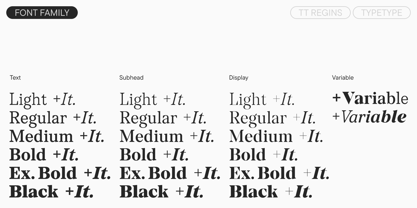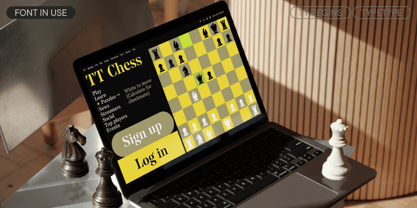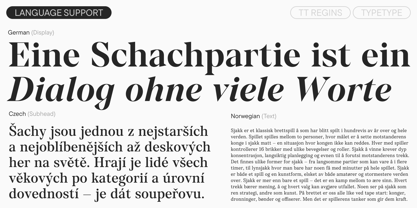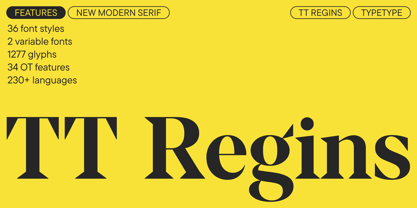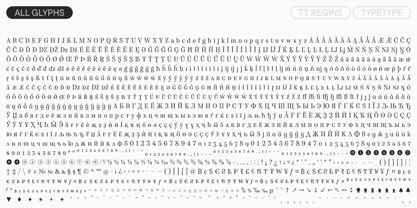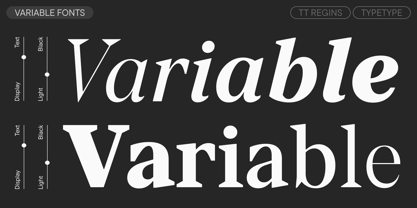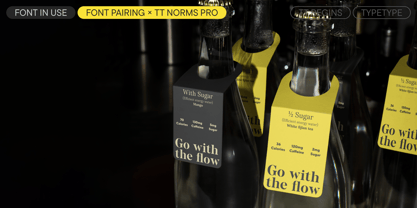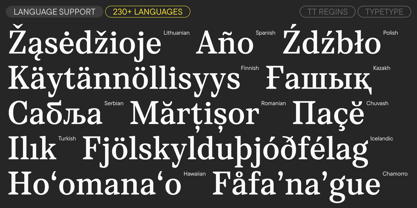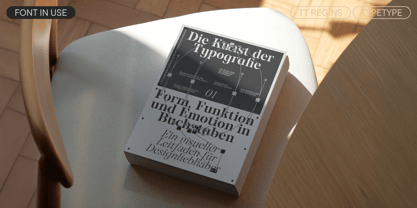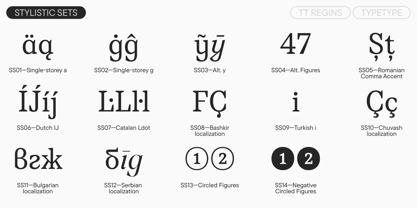
TT Regins
by TypeType
The TT Regins Font Family was designed by Marina Khodak, TypeType Team and published by TypeType. TT Regins contains 38 styles and family package options. More about this family
Introducing the new TT Regins—a font with a royal character! TT Regins is a Scottish modern serif. Striking contrast and sharp triangular serifs give this font a stern and commanding character, while refined forms, enlarged lowercase letters, and slightly condensed, static proportions add grace to its design. TT Regins includes three subfamilies with varying degrees of contrast: Display, Text, and the intermediate Subhead. In the Display subfamily, designed for large inscriptions, the contrast is most pronounced, and the character is expressed most vividly. In Text, the contrast is muted for improved readability, ensuring the font works flawlessly in running text. Subhead can be used for accents and headlines. Each style is optimized for comfortable use within its corresponding point size range: the optical size axis allows for adapting the contrast and the degree of design. We paid special attention to the cursive italics, which are striking and dynamic. They are slanted at 14° and stand out clearly in text due to their 'true italic' forms. The serifs at the top remain sharp, while those at the bottom become semi-rounded—this creates an effect of gliding and unified motion within the text. TT Regins includes stylistic sets that can be used to make the font's character smoother. The typeface's capabilities are also expanded by two variable fonts for working with different weights and optical sizes in the upright and italic styles. We've also added an atmospheric, themed set of icons featuring chess and playing cards. TT Regins is highly versatile and functional: different styles can be used for different tasks, creating font pairs within a typeface. It will look harmonious in fashion magazines, in the brand identities of museums and cultural institutions, on perfume packaging, and in the design of historical exhibitions. With its help, it is easy to create a sense of elitism and sophistication. TT Regins includes: 38 styles: 18 uprights, 18 italics, and 2 variable fonts 1,277 glyphs in the upright styles, 1,285 in the italics 34 OpenType features Support for over 230 languages